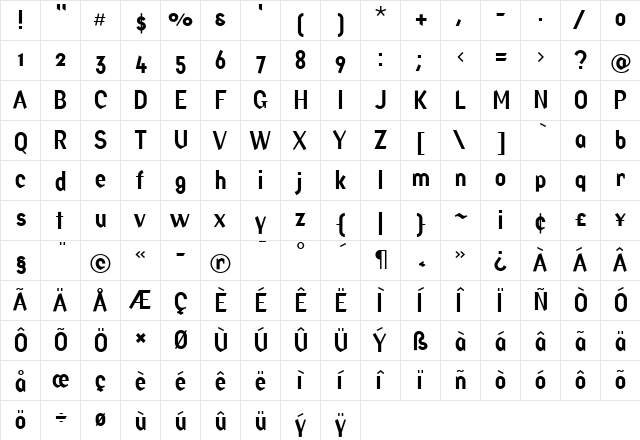
Factory Regular Font Preview
Factory Regular
Design Context for Factory Typeface
Factory offers clean, dependable letterforms without strong stylistic allegiance, making it a practical choice for designers who need flexibility.